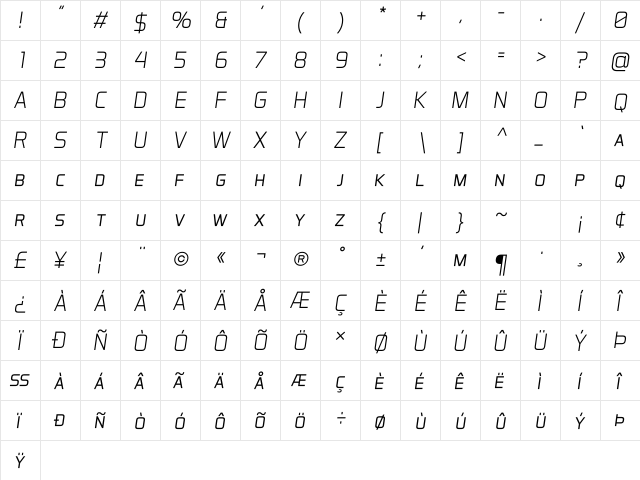
Aero Matics Display Light Italic Font Preview
Design Context for Aero Matics Display Light Typeface
Aero Matics Display Light brings ornamental detail and strong personality to headlines and identities, where visual impact matters more than quiet functionality. The dynamic lean of this cut emphasises speed and emphasis in any layout. Its slender proportions lend an understated elegance to any composition.
Font Pairing: Pair with a clean neutral sans-serif for body copy to let Aero Matics Display Light's character lead without overwhelming the composition.
Pro Tip: Treat Aero Matics Display Light as the centrepiece of your typographic hierarchy. One strong heading set in a decorative face can carry an entire layout.